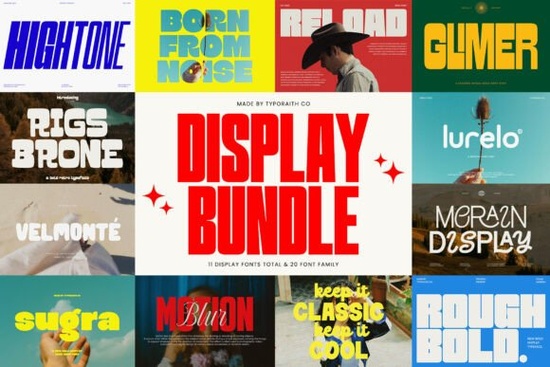
Designers, crafters, and small business owners often look for versatile tools to bring their creative visions to life. The Display Bundle Font is one such resource that offers a wide range of typographic options. This collection includes 11 premium display fonts, making it a valuable addition to any design toolkit. Whether you're working on branding, packaging, or social media graphics, this bundle provides the flexibility needed to create eye-catching visuals.
Each font in the Display Bundle Font is crafted with care, ensuring that character shapes, spacing, and visual rhythm are consistent across all styles. This attention to detail makes the fonts suitable for both digital and print use. From bold sans-serifs to soft, retro-inspired designs, there’s something in this collection for every project. If you’re looking for a reliable source of typography, this bundle could be exactly what you need.
What Makes This Font Bundle Unique?
The Display Bundle Font stands out due to its variety and quality. With 20 complete font families, it offers multiple options for different moods and styles. For example, if you're working on a project that requires a modern, clean look, you might choose one of the sans-serif fonts. On the other hand, if you're going for a nostalgic or vintage feel, the rounded displays could be the perfect fit.
These fonts are not just visually appealing they’re also functional. They maintain clarity at various sizes and are optimized for readability in both online and printed formats. This makes them ideal for a wide range of applications, from headlines and logos to packaging and promotional materials.
How to Use These Fonts in Your Projects
One of the best things about the Display Bundle Font is its versatility. You can use it for everything from website headers to social media posts. If you're a print-on-demand seller, these fonts can help you create unique designs that stand out. For small businesses, they offer a professional touch without the need for custom typography.
When choosing a font from the bundle, consider the tone and message you want to convey. A bold, geometric typeface might work well for a tech startup, while a softer, handwritten style could be better suited for a boutique or artisan brand. Experimenting with different fonts can help you find the perfect match for your project.
Whether you're a seasoned designer or just starting out, the Display Bundle Font can be a useful tool in your creative process. Its combination of style, functionality, and variety makes it a great choice for anyone looking to enhance their visual projects.